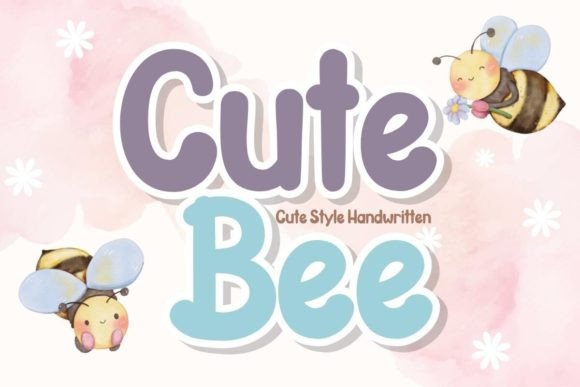
Cute Bee Font
About the Cute Bee Font
From logos to headlines, the Cute Bee Font is the perfect choice for making a lasting impression. Introducing “Cute Bee” – the perfectly sweet and cute display font. Elevate your designs with the charm and personality of Cute Bee. Its whimsical curves and playful strokes will bring a delightful touch to any project. Give your creations a unique and inviting flair with Cute Bee font today!
Cute Bee’s whimsical design is ideally suited for headlines, short playful taglines, children’s books, or branding for sweet treats and similar products. It works exceptionally well in packaging design and on social media posts where its charm can shine. However, its decorative nature makes it unsuitable for body text or UI elements where legibility is paramount. Avoid using it for large blocks of text.
For effective pairings, consider pairing Cute Bee with a clean sans-serif like Open Sans for body copy, creating a balance between playfulness and readability. Alternatively, a classic serif such as Garamond could add a touch of sophistication, complementing Cute Bee’s sweetness without overwhelming it.
Cute Bee projects a friendly, approachable, and undeniably charming personality. Its overall mood is lighthearted and fun, making it a great choice for brands targeting a young or family-oriented audience.
Cute Bee Font Example